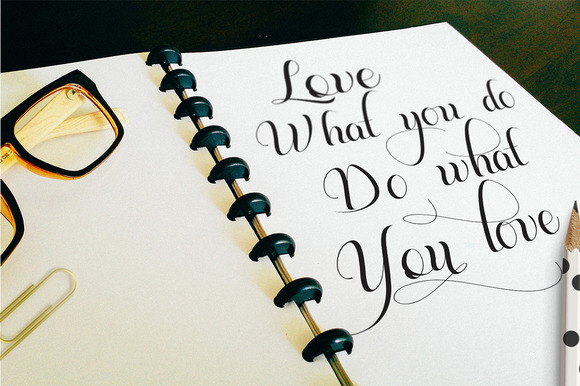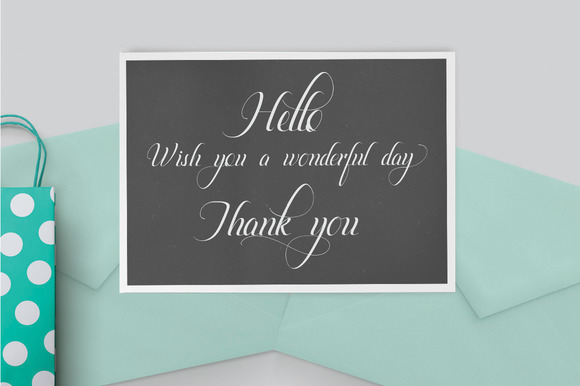
Introducing Flamboyan Font: The Sweet Calligraphy Script for Modern Designs
Are you tired of using the same old fonts for your designs? Look no further! Flamboyan Script is a fresh and modern script font that is sure to elevate your creative projects. With its sweet calligraphy-style and decorative characters, Flamboyan Font is perfect for designers and crafters looking to add a touch of elegance and sophistication to their work.
What is Flamboyan Font?
Flamboyan Script is a beautifully crafted script font that features a unique blend of classic calligraphy and modern flair. Its flowing lines and delicate strokes give it a romantic and whimsical feel, making it perfect for a variety of design applications. Whether you’re creating wedding invitations, branding materials, or social media graphics, Flamboyan Font is sure to make your designs stand out.
Key Features of Flamboyan Font
- Sweet Calligraphy-Style: Flamboyan Font features a beautiful, handwritten script style that is reminiscent of traditional calligraphy.
- Decorative Characters: The font includes a range of decorative characters, including swashes, flourishes, and ligatures, to add extra flair to your designs.
- Modern and Fresh: Flamboyan Font has a distinctly modern feel, making it perfect for designers looking to create fresh and contemporary designs.
- Elegant and Sophisticated: The font’s elegant lines and refined strokes give it a sophisticated feel that’s perfect for high-end designs.
Uses for Flamboyan Font
Flamboyan Font is a versatile font that can be used for a wide range of design applications, including:
- Wedding Invitations: The font’s romantic and whimsical feel makes it perfect for wedding invitations, save-the-dates, and other wedding-related designs.
- Branding and Packaging: Flamboyan Font’s modern and elegant feel makes it a great choice for branding and packaging designs, particularly for luxury brands.
- Social Media Graphics: The font’s decorative characters and sweet calligraphy-style make it perfect for social media graphics, including Instagram posts, Facebook graphics, and more.
- Stationery and Paper Goods: Flamboyan Font is also a great choice for stationery and paper goods, such as notecards, journals, and planners.
Tips for Using Flamboyan Font
To get the most out of Flamboyan Font, here are a few tips to keep in mind:
- Use it sparingly: Flamboyan Font is a decorative font, so it’s best to use it sparingly to add emphasis and interest to your designs.
- Pair it with a simple font: Pair Flamboyan Font with a simple, sans-serif font to create a striking contrast and add visual interest to your designs.
- Experiment with sizes and colors: Don’t be afraid to experiment with different sizes and colors to add depth and dimension to your designs.
Flamboyan Font is a beautiful and versatile script font that is sure to elevate your designs. With its sweet calligraphy-style and decorative characters, it’s perfect for designers and crafters looking to add a touch of elegance and sophistication to their work. Whether you’re creating wedding invitations, branding materials, or social media graphics, Flamboyan Font is a great choice. So why wait? Download Flamboyan Font today and start creating stunning designs!